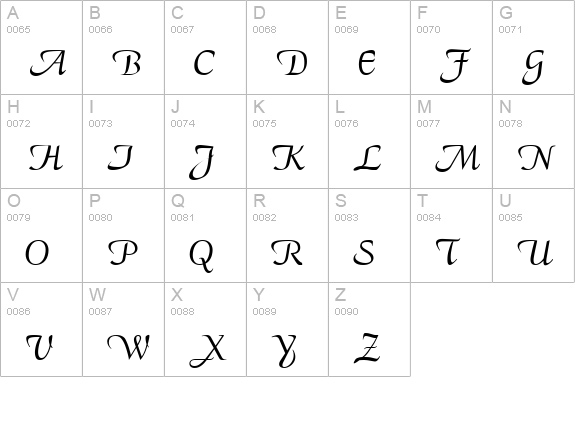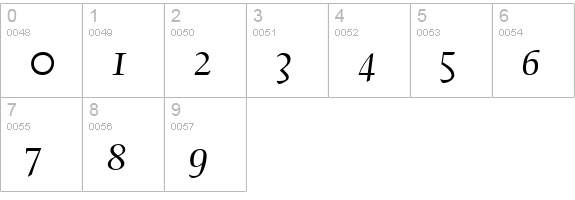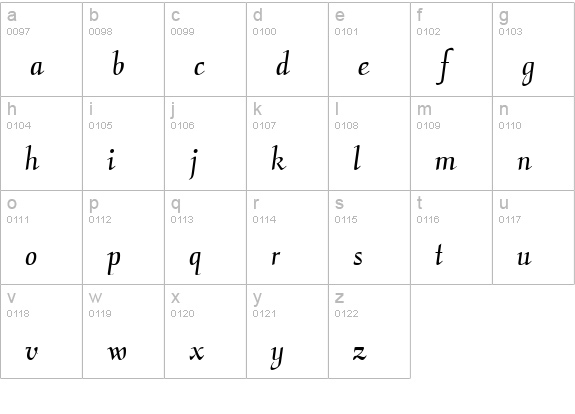
Aria Script SSi is an elegant and sophisticated font that exudes a sense of luxury and refinement. With its flowing lines and intricate details, this script typeface is perfect for adding a touch of glamour to your designs. Whether you're working on wedding invitations, branding materials, or any other project that calls for a touch of elegance, Aria Script SSi is sure to impress. The best part? Aria Script SSi is available for free download at FontsMarket.com, making it accessible to designers of all levels. Don't miss out on the opportunity to enhance your projects with this stunning font that will surely elevate your designs to the next level. Download Aria Script SSi today and let your creativity soar!